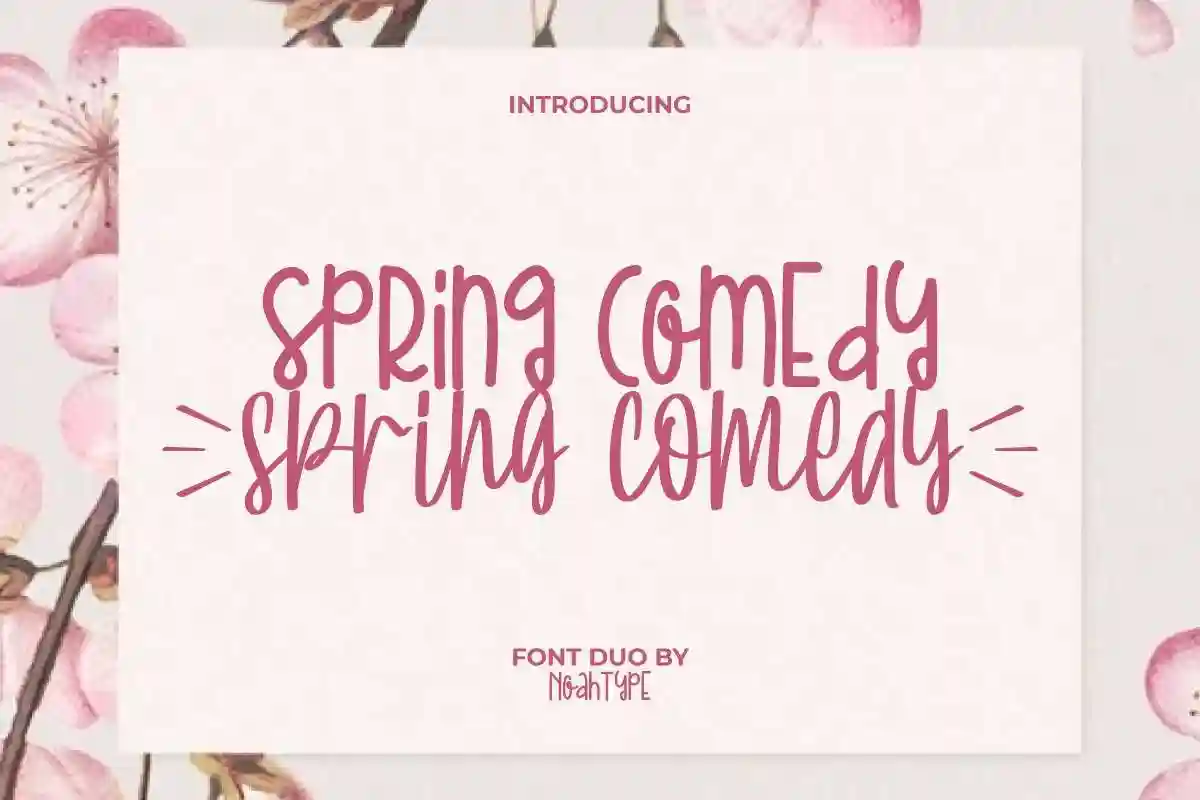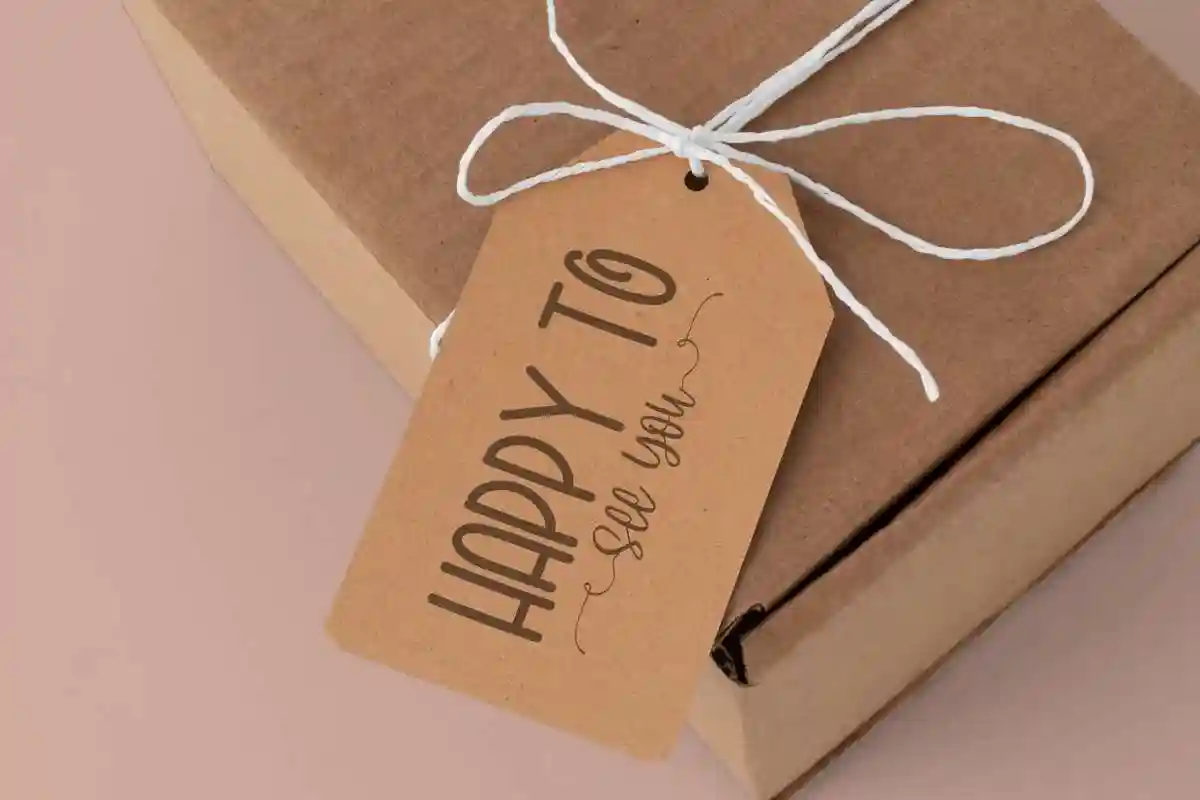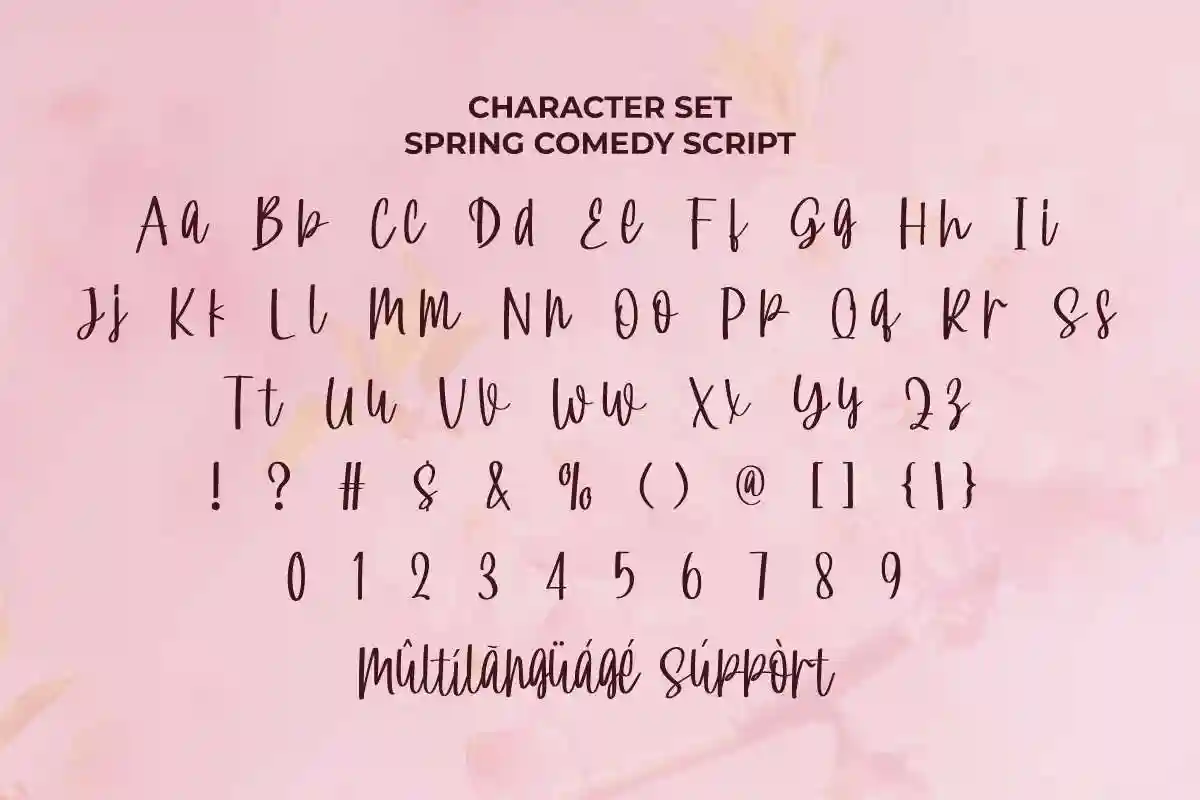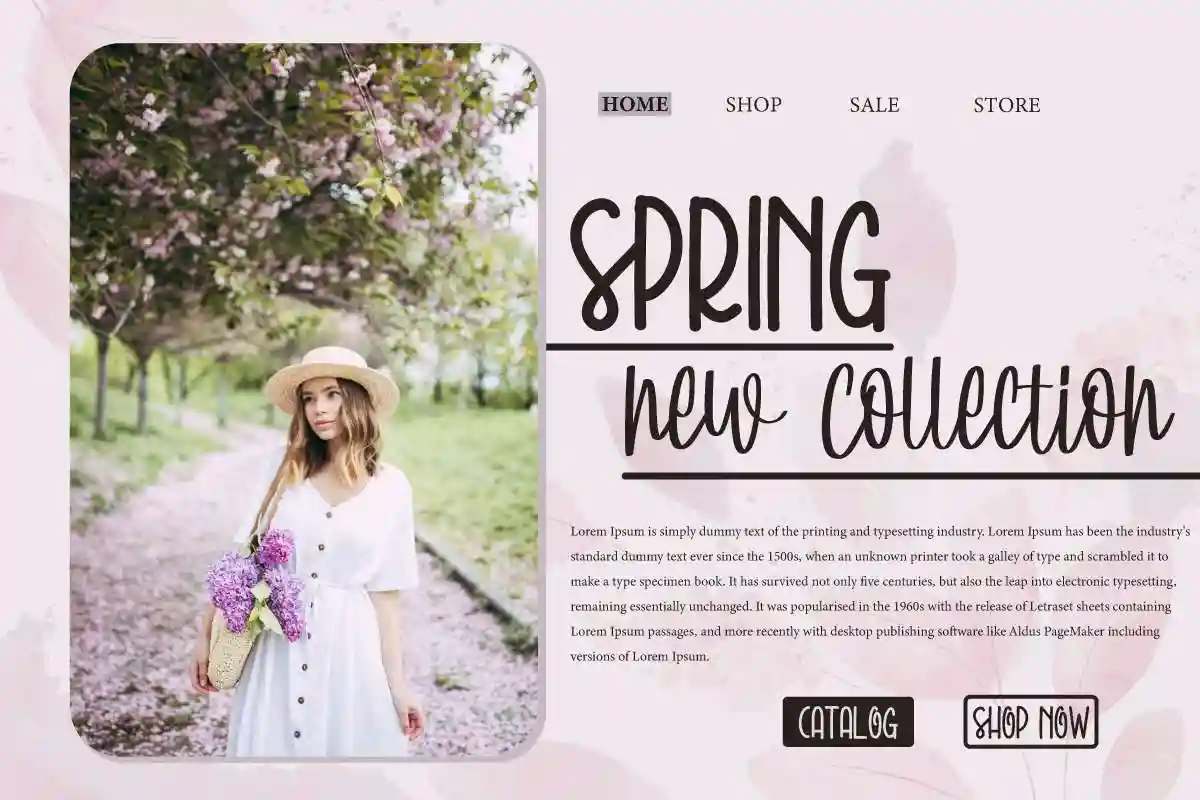
Spring Comedy is a uniquely beautiful font duo style designed by NoahType. The font comes with cute handwriting note and special display typeface. This font brings fun and sophisticated styles to another level. It will be amazing for any industry: boutique, craft, fashion, florist, kids stuff, wedding organizer, and more.
Spring Comedy Font includes full set of Uppercase and Lowercase Basic Characters, Numerals and Punctuation. This font brings a cheerful, elegant, and spring feel that flows together flawlessly. It will be perfect for any project: blog headers, gift, invitations, product packaging, quotes, title, and more.
Looking to add a burst of fun and personality to your designs? Meet Spring Comedy Font Duo, a delightful pair of fonts designed to bring charm, humor, and a touch of springtime freshness to any creative work. This dynamic duo includes a bold, bouncy display font and a complementary script font that flow together seamlessly.
Whether you’re working on greeting cards, branding, packaging, posters, children’s books, or even quirky social media posts, Spring Comedy Font Duo is your go-to choice.
Spring Comedy Font supports multilingual languages (including multiple currency symbols) with a simple installation, also have swoosh characters options that you can select and use to make it standout. The font will be ready to use both on Windows machine or Mac. It work well on Adobe software such as Illustrator, Photoshop and several other software.